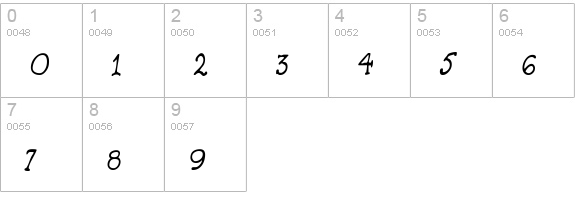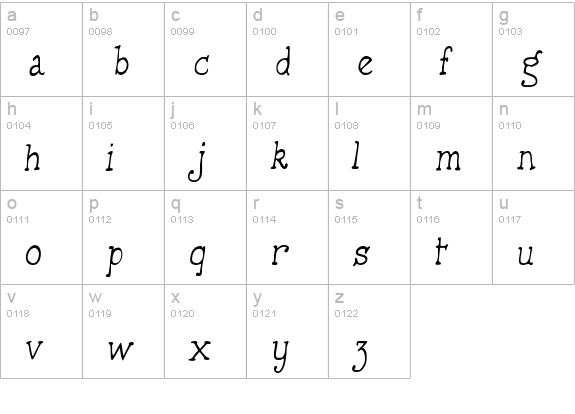
HandmadeTypewriter Font Details
HandmadeTypewriter font is a charming and nostalgic typeface that brings back the classic appeal of vintage typewriters. Its unique handmade appearance adds a touch of authenticity and warmth to any design project. The imperfectly crafted characters give a sense of individuality and character, making this font suitable for various creative endeavors. Best of all, HandmadeTypewriter font is completely free to download at FontsMarket.com. Whether you're working on a retro-themed project, a creative DIY blog, or simply looking to add a touch of vintage flair to your designs, this font is a perfect choice. Embrace the timeless charm of typewriters with HandmadeTypewriter font and let your creativity shine.